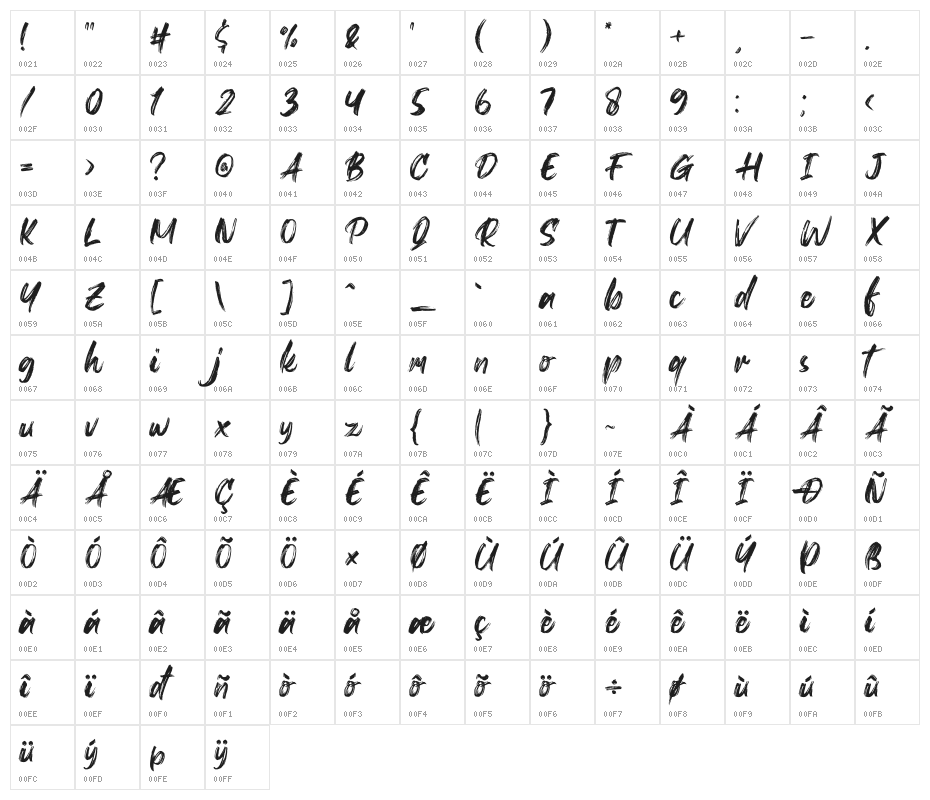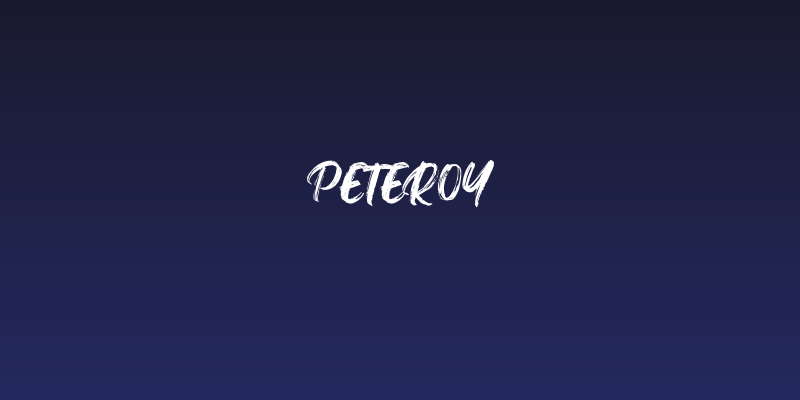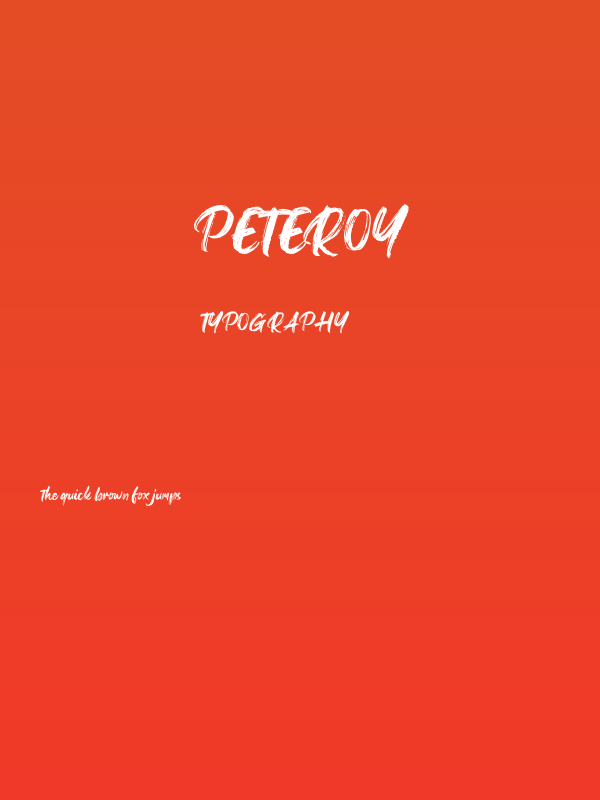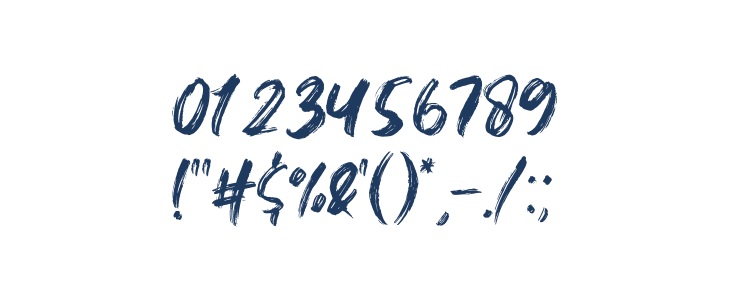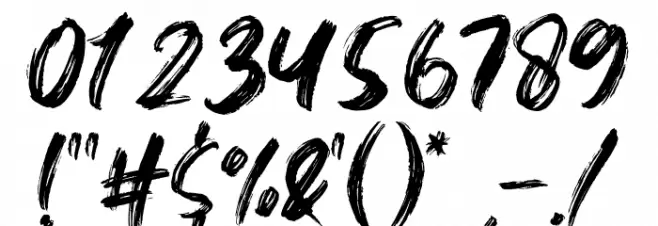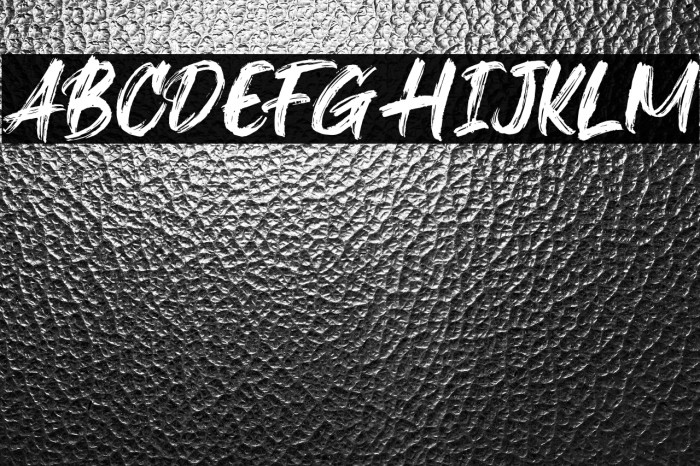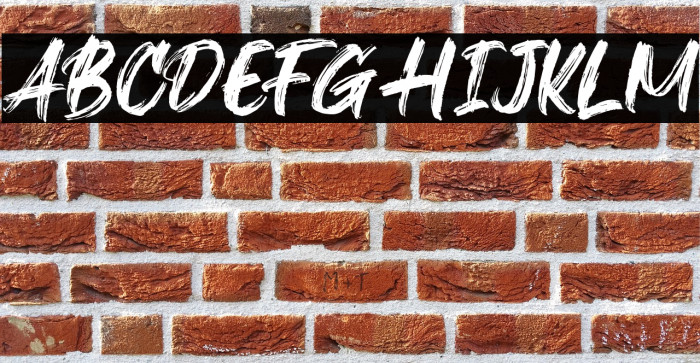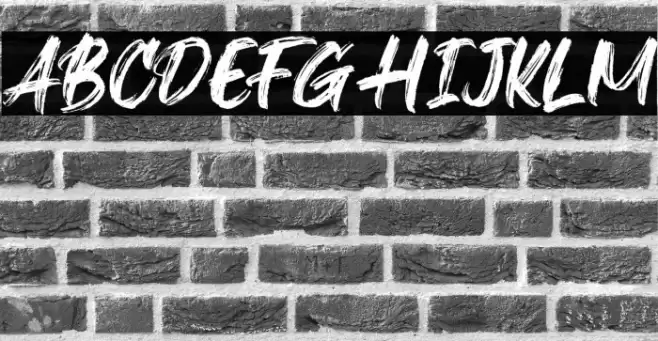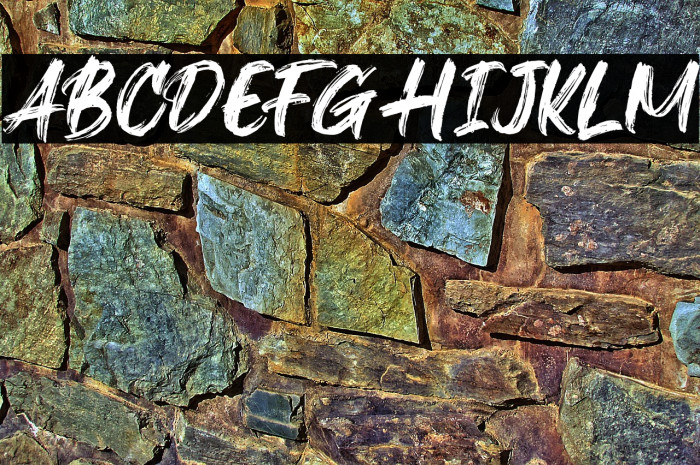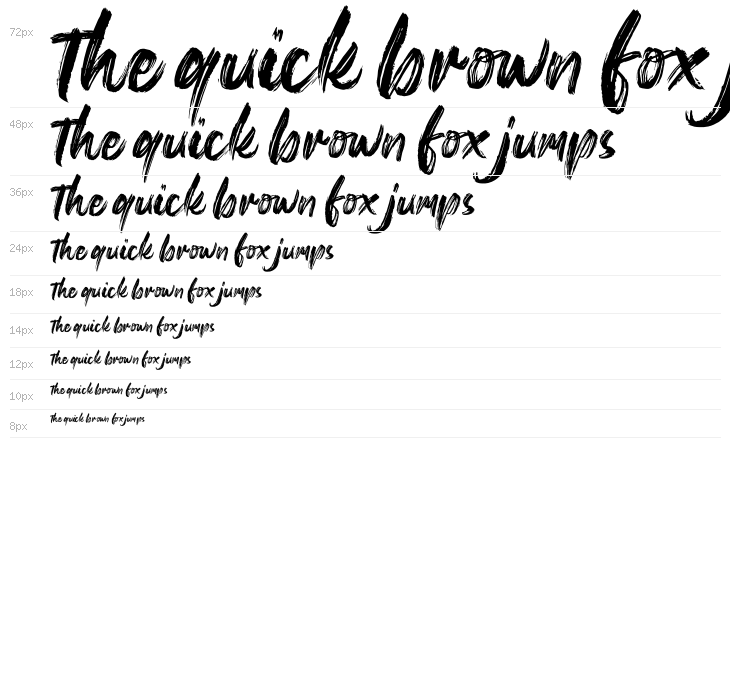
Peteroy Font
Peteroy Description
This font features a dynamic and expressive brush style, characterized by its bold and energetic strokes. The letters exhibit a hand-painted appearance, with varying thickness that adds a sense of movement and vitality. The uppercase and lowercase letters maintain a consistent style, with a slightly irregular baseline that enhances the font's organic feel. The numerals and special characters are equally expressive, ensuring a cohesive look across all text elements. This font's artistic flair makes it suitable for projects that require a personal touch or a creative edge.